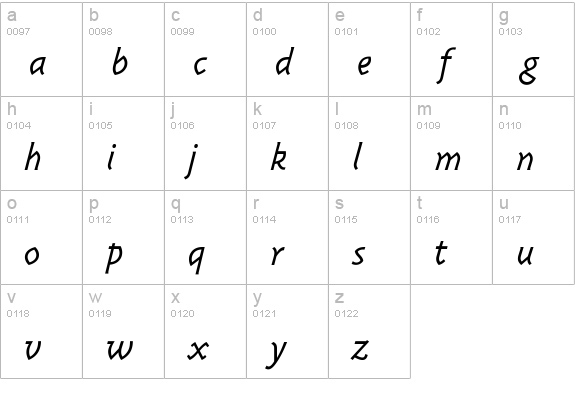
TriplexItalicLightLining Font Details
TriplexItalicLightLining is a remarkable font that exudes elegance and sophistication. Its exquisite design features delicate and graceful curves, offering a unique touch to any project or design. This font radiates an air of modernity and refinement, making it ideal for high-end branding, luxurious packaging, and exquisite invitations. The TriplexItalicLightLining font is the epitome of versatility, seamlessly adapting to various design styles and purposes. Its light and italicized form adds a subtle touch of sophistication, making it perfect for conveying a sense of elegance and finesse. Whether you are creating a logo for a luxury brand, designing a wedding invitation, or crafting a refined editorial layout, this font will effortlessly elevate your work to new heights. One of the most appealing aspects of TriplexItalicLightLining is that it is freely available to download at FontsMarket.com. This means that you can access this stunning font without any cost, allowing you to enhance your designs without breaking the bank. With its high-quality and professional design, TriplexItalicLightLining is a valuable asset for both seasoned designers and newcomers looking to add a touch of sophistication to their projects. Don't miss out on the opportunity to elevate your designs with TriplexItalicLightLining. Download this exquisite font today from FontsMarket.com and unlock a world of elegance and refinement.